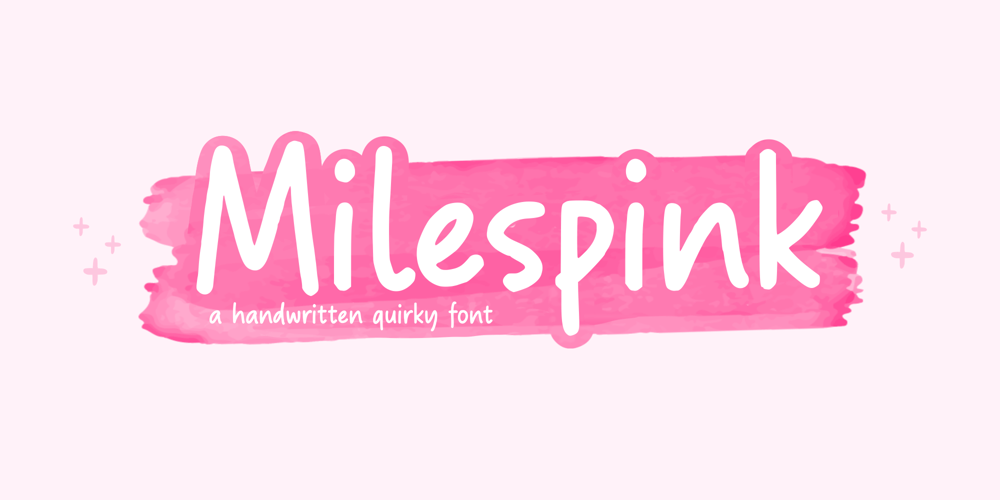
Milespink Font Family was designed by Fachrizal Yusuf and published by Allouse Studio. Milespink contains 1 styles and family package options. Proudly Presenting, Milespink A Quirky Handwritten FontMilespink is perfect for any titles, logo, product packaging, branding project, megazine, social media, wedding, or just used to express words above the background.Milespink come with Multi-Lingual Support.Enjoy the font, feel free to comment or feedback, send me PM or email. Thank You!